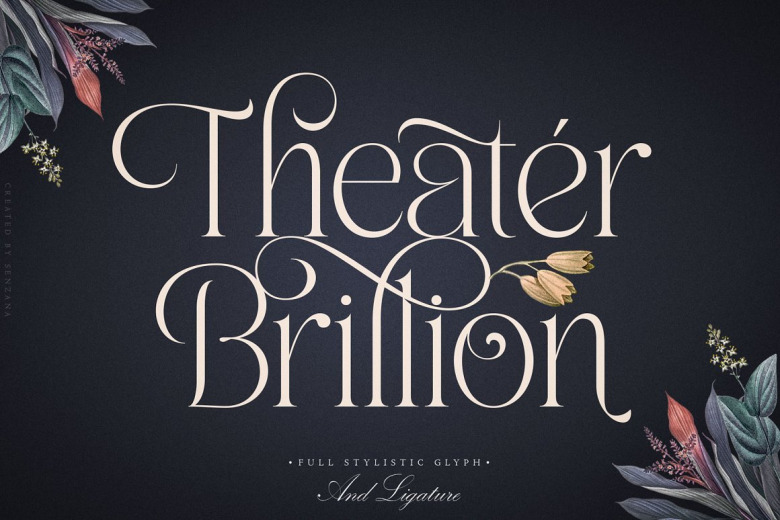
Theater Brillion Font
Theater Brillion is an elegant, stylish, and playful modern serif font crafted & designed by senzana. This font is very classic and elegant. equipped with stylistics up to 288 glyphs, of course it will really help your work more attractive and beautiful.
This serif font is perfect for designs like movie, poster, wedding invitations, and work great for logo, branding, headers, or labels.
Theater Brillion Serif Font